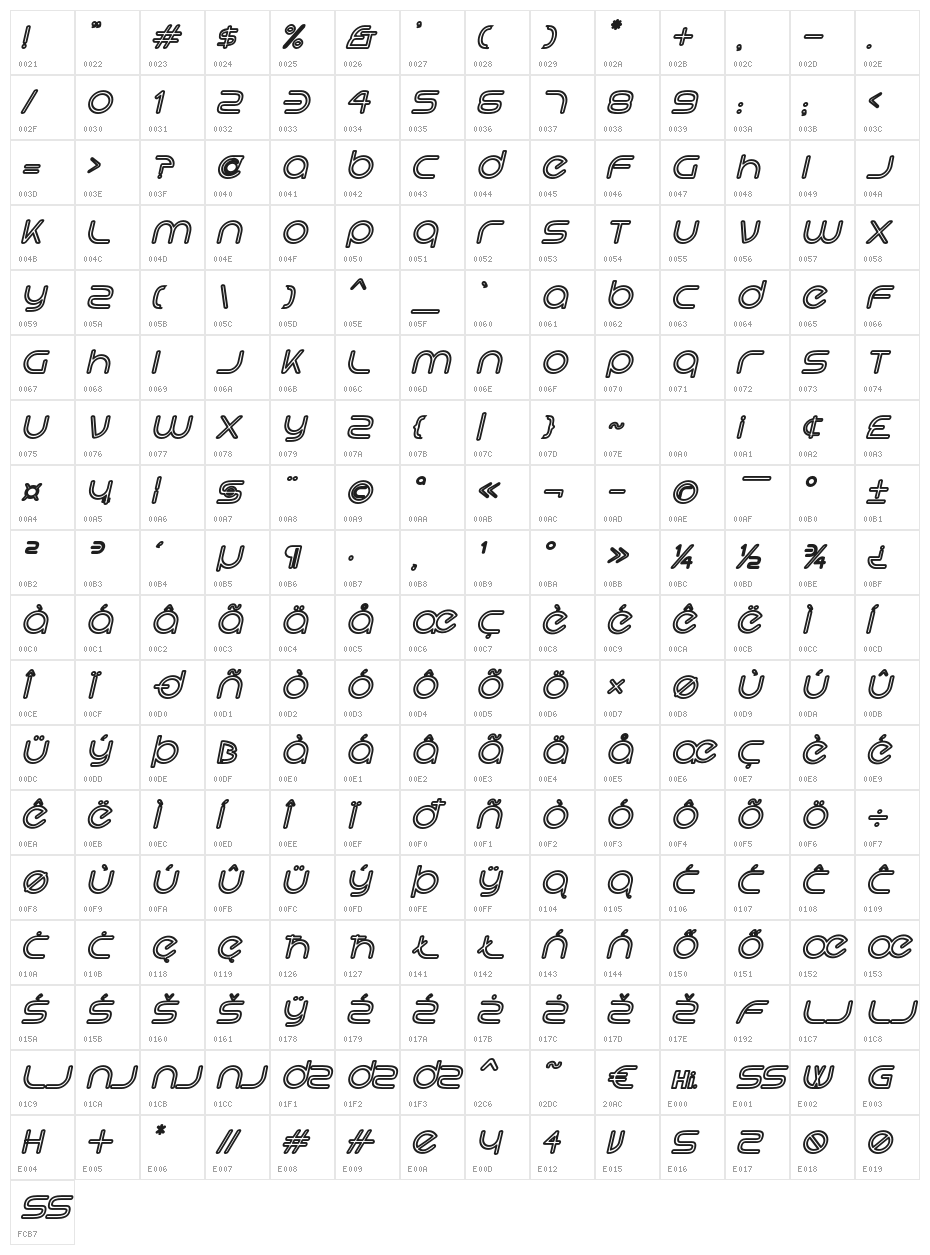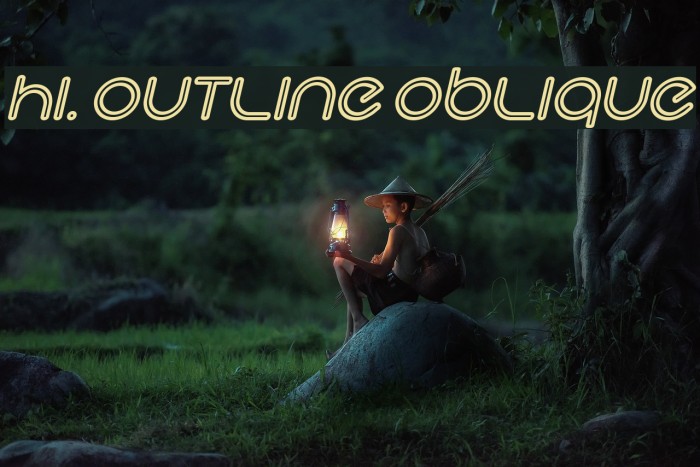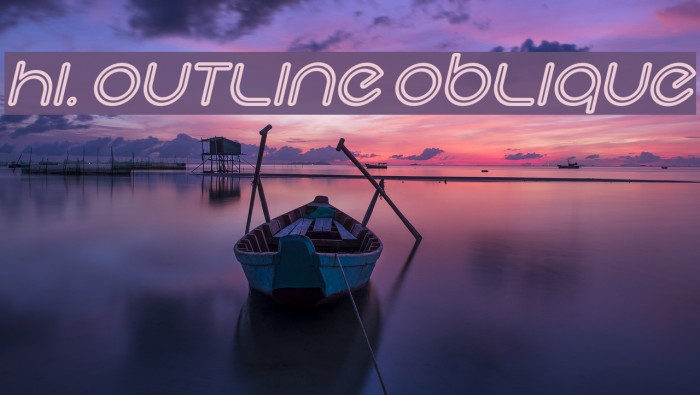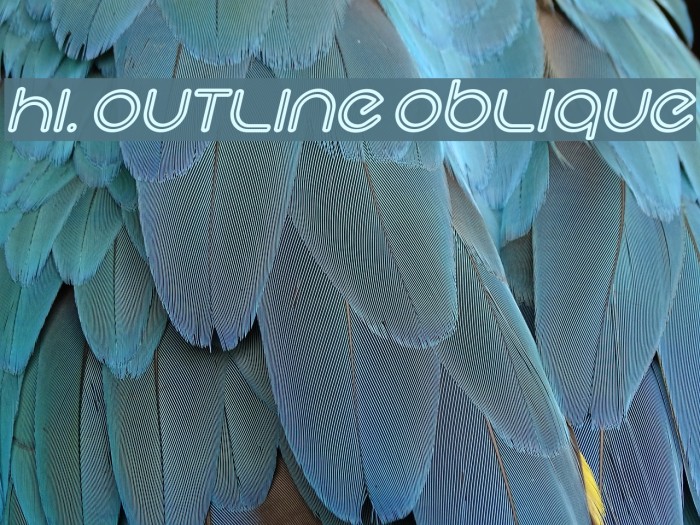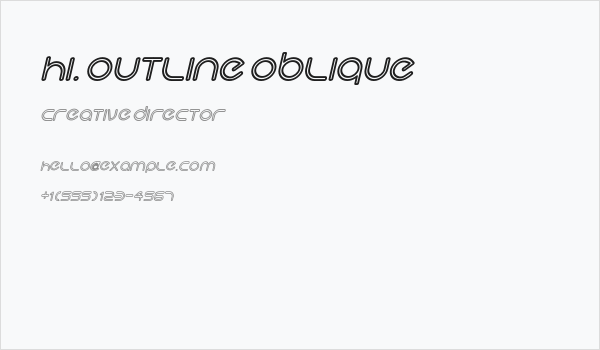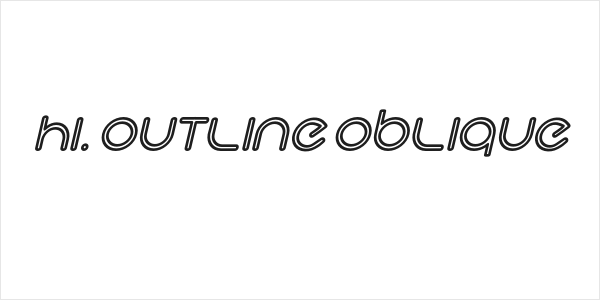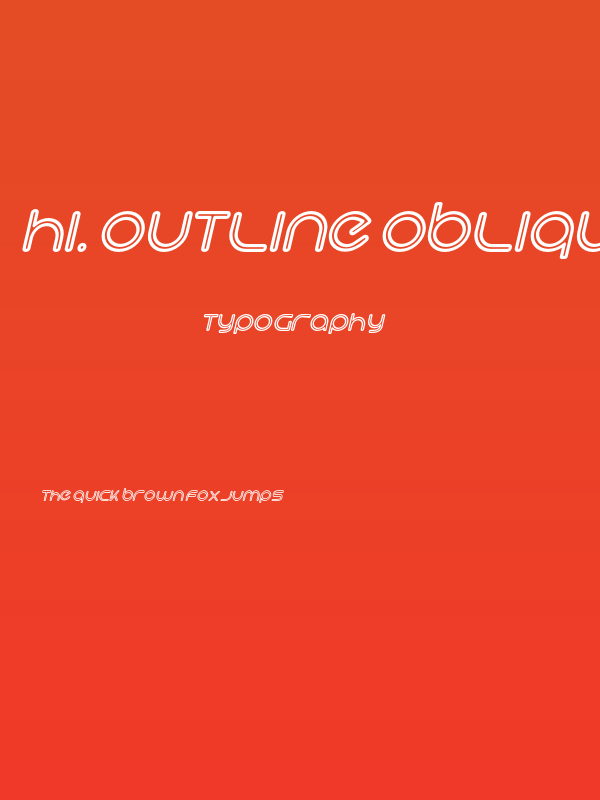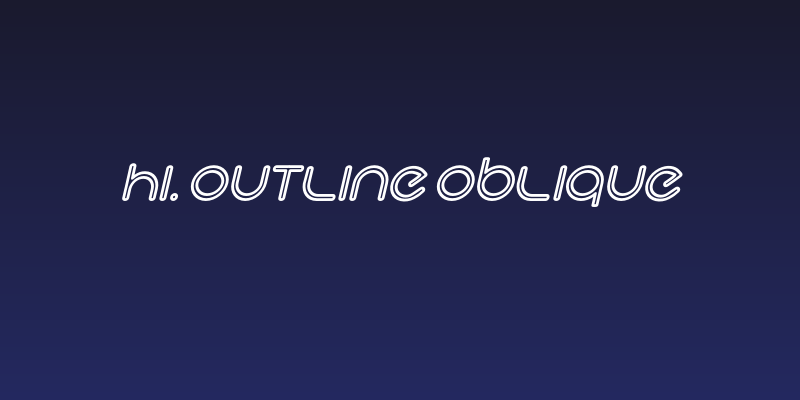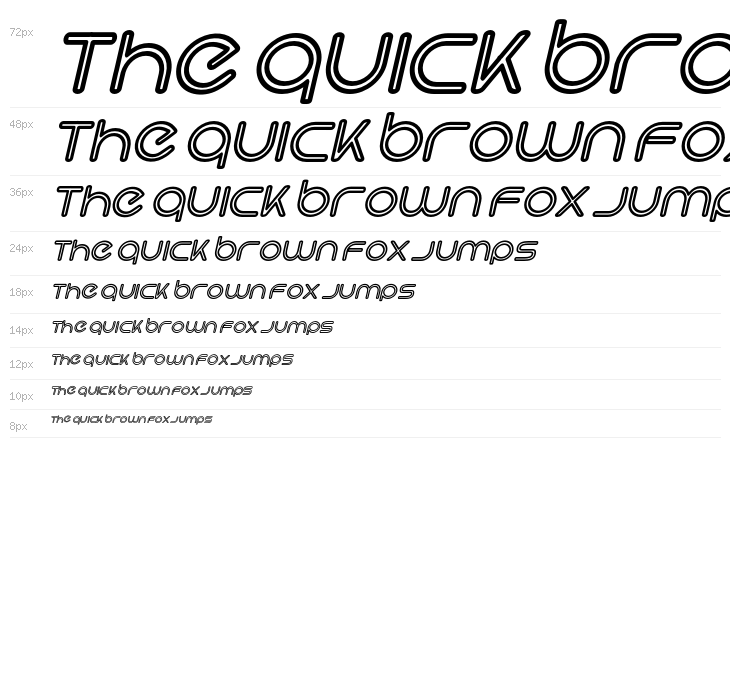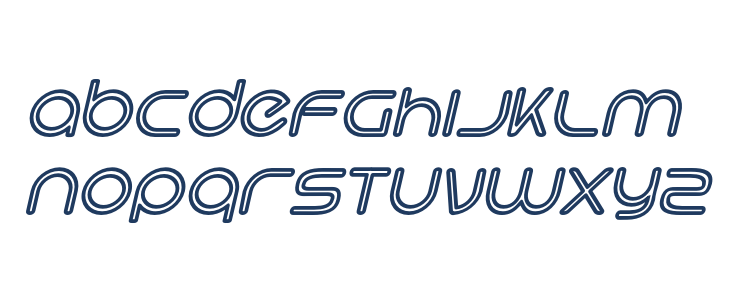
Hi. Outline Oblique Font
Hi. Outline Oblique Description
This font features a distinct outline style with an oblique slant, giving it a modern and dynamic appearance. The characters are designed with a continuous, smooth line that creates an open and airy feel. The uppercase and lowercase letters maintain a consistent style, with rounded edges and a slight forward tilt, enhancing the sense of motion. The numerals and special characters follow the same design principles, ensuring uniformity across all glyphs. This font's unique outline and oblique characteristics make it stand out, offering a futuristic and sleek aesthetic.